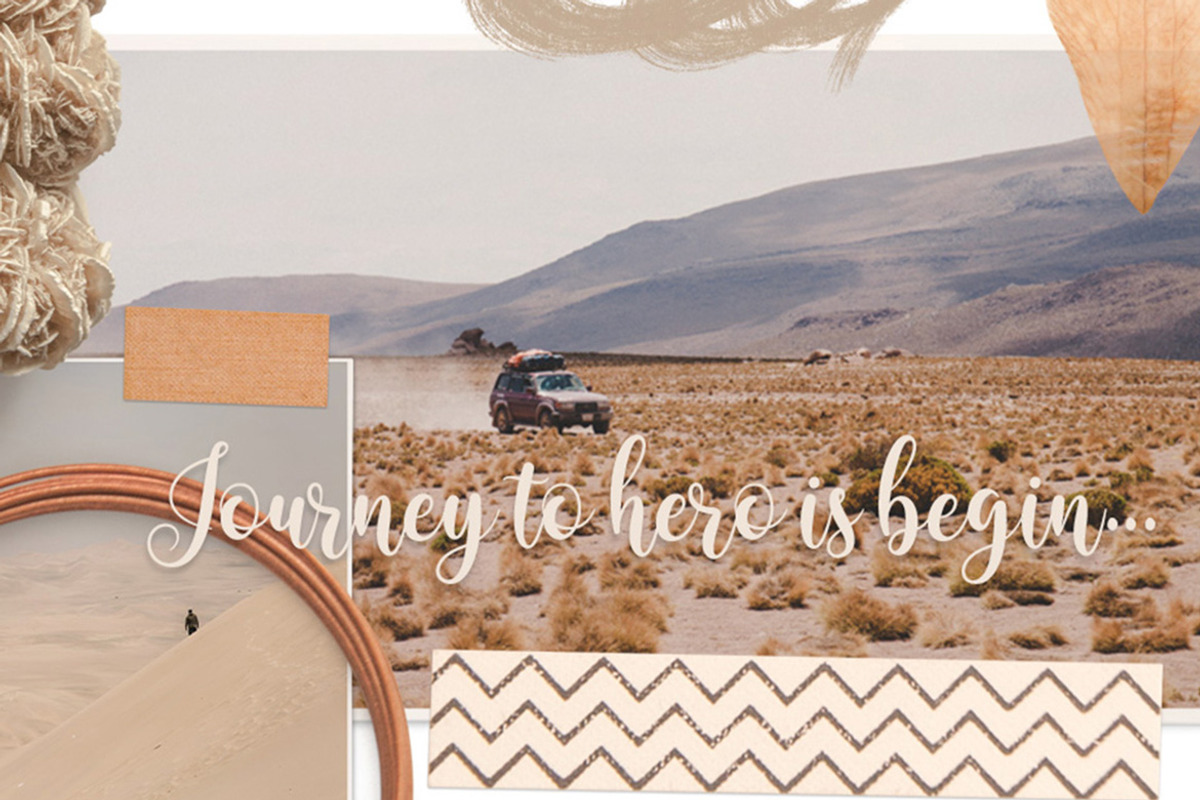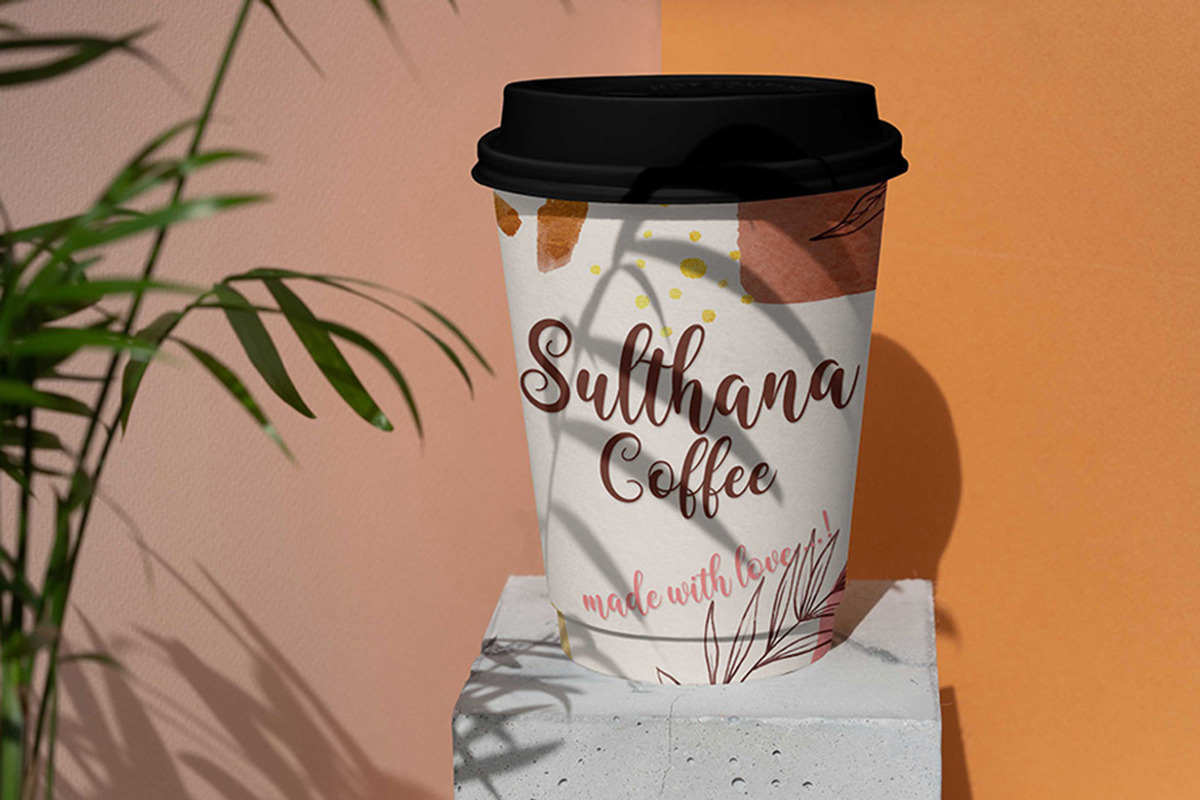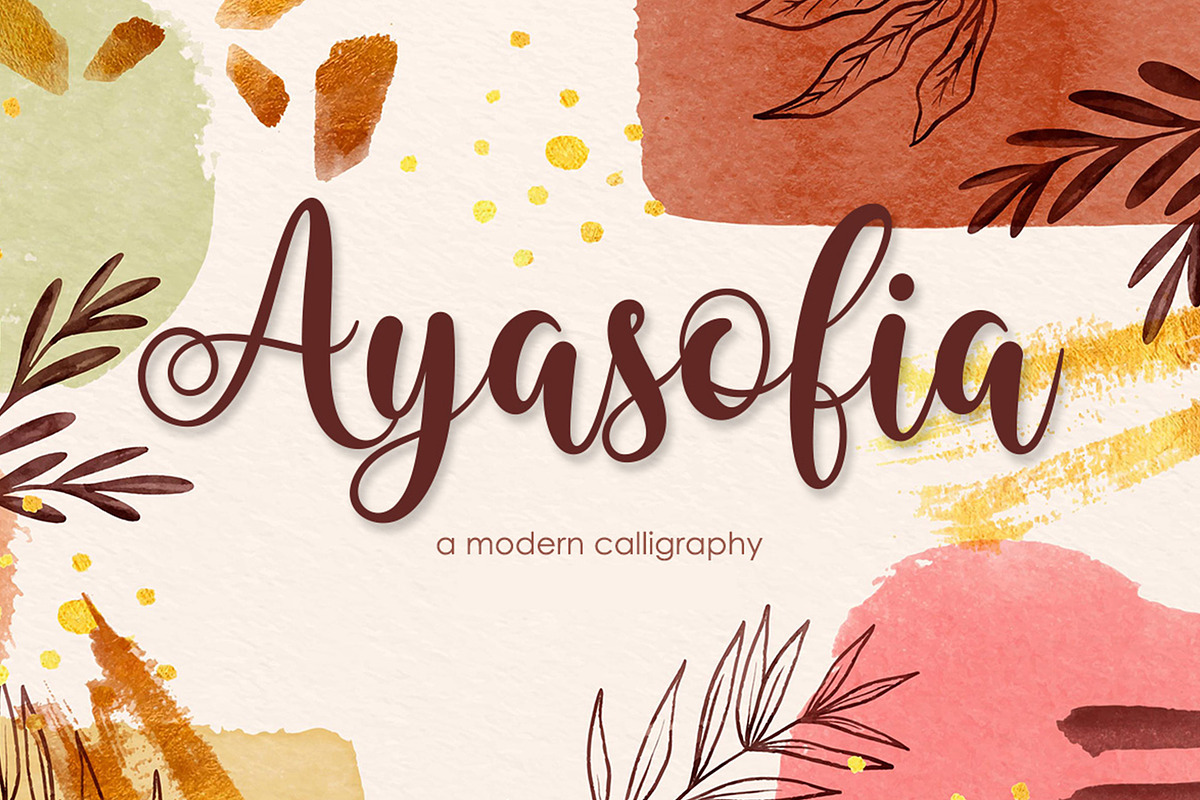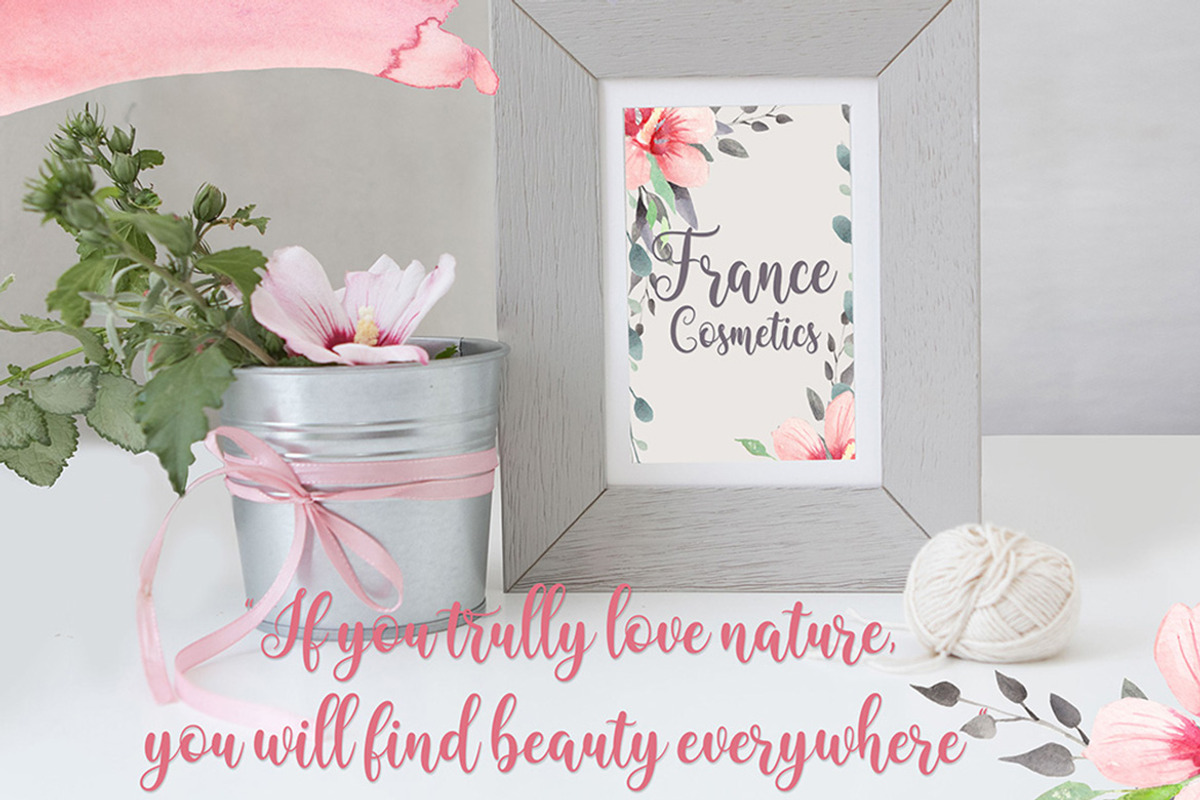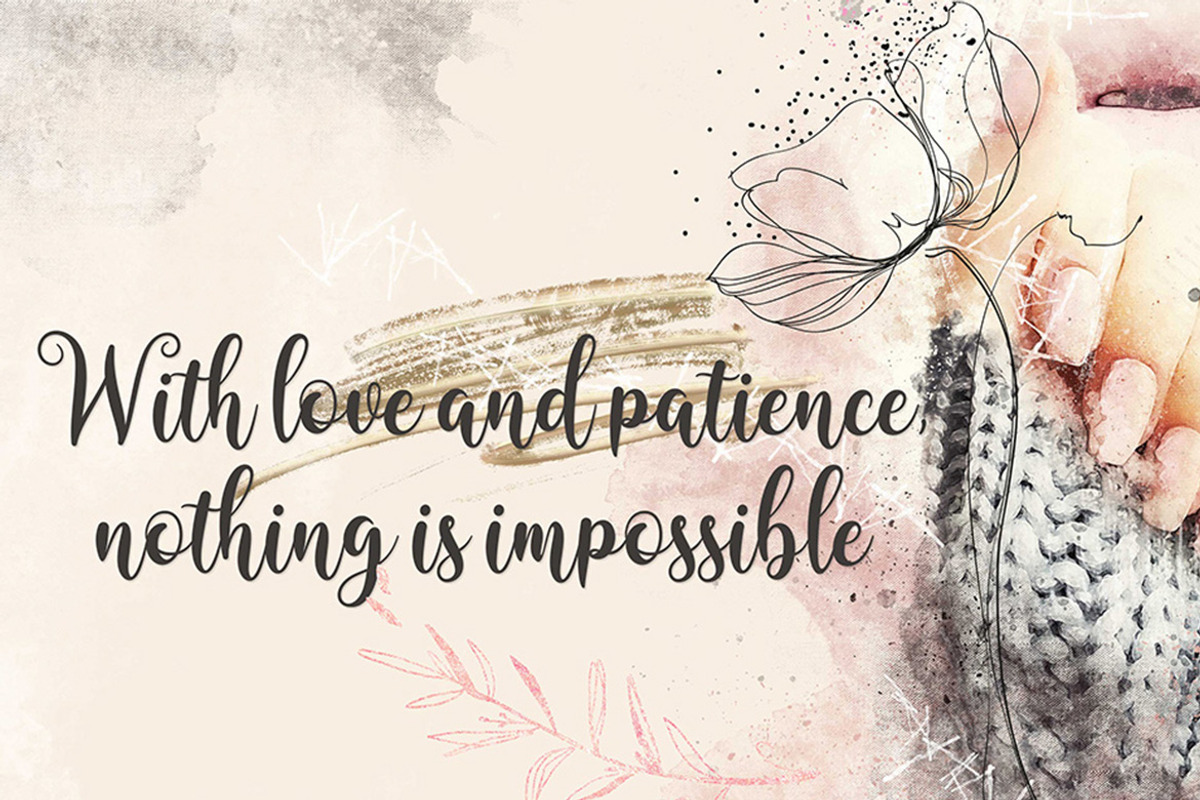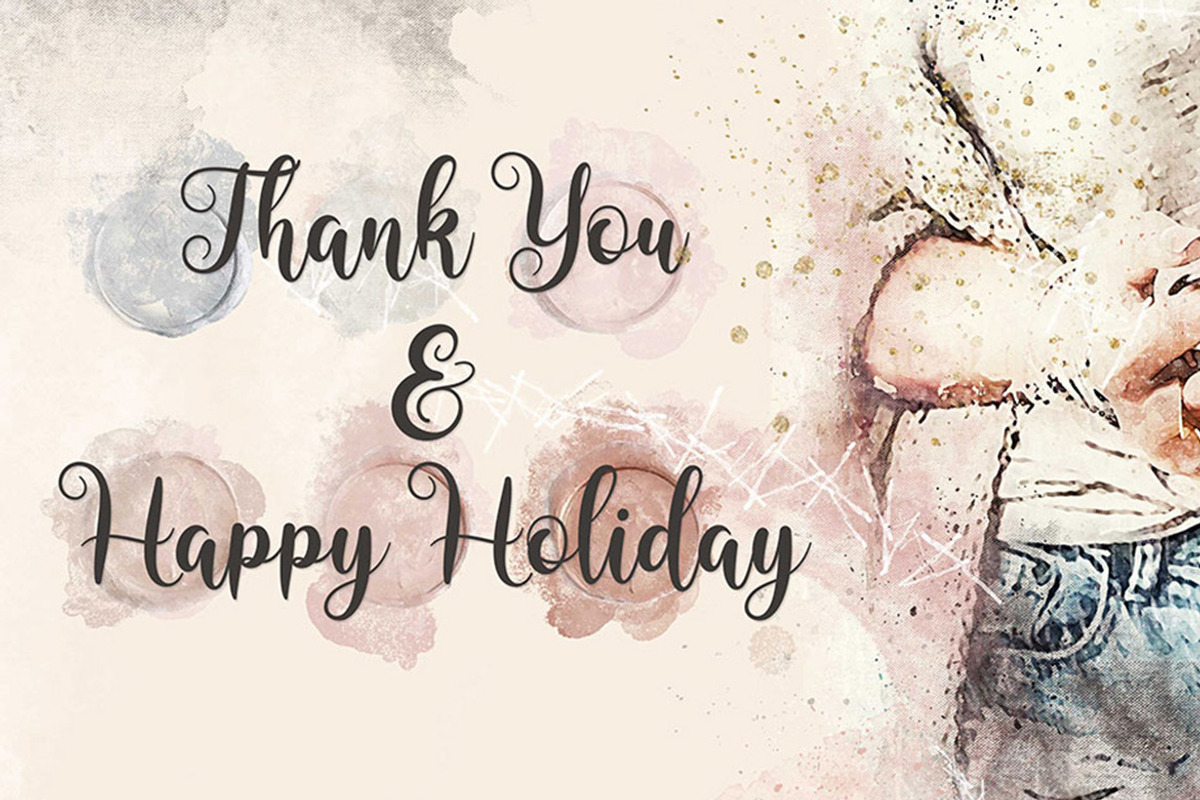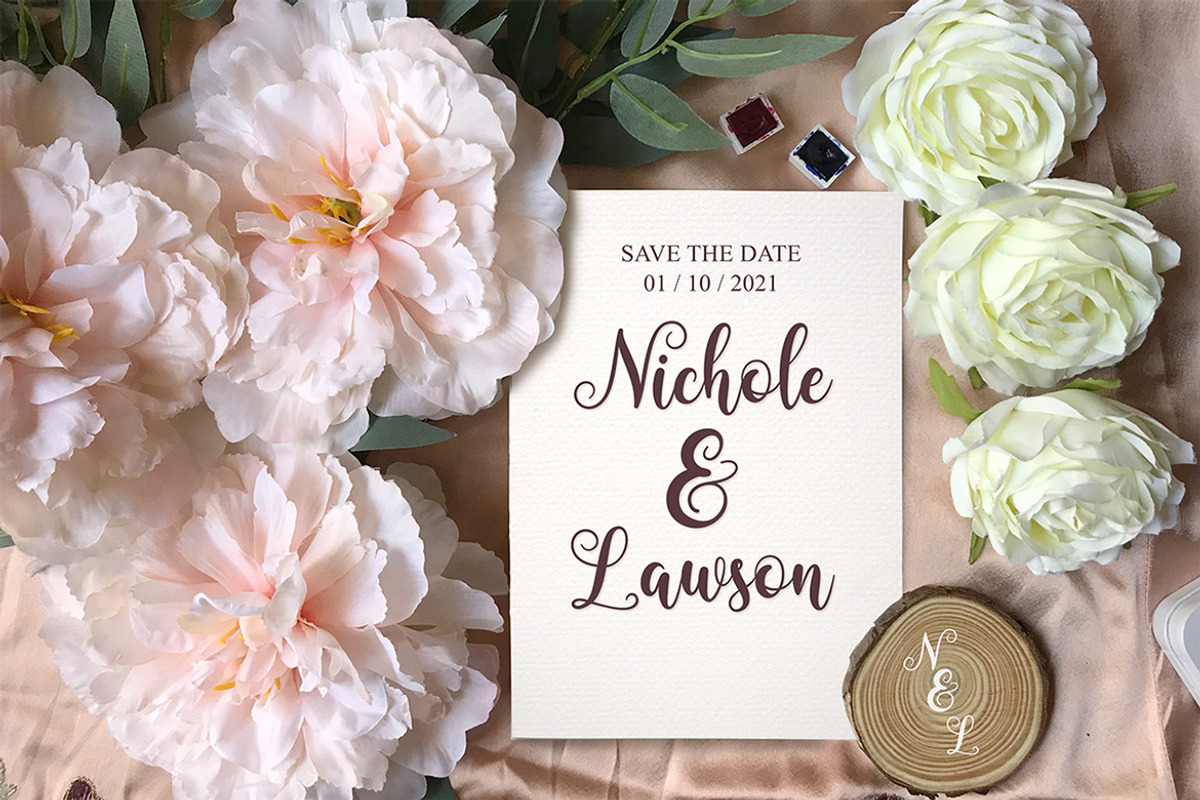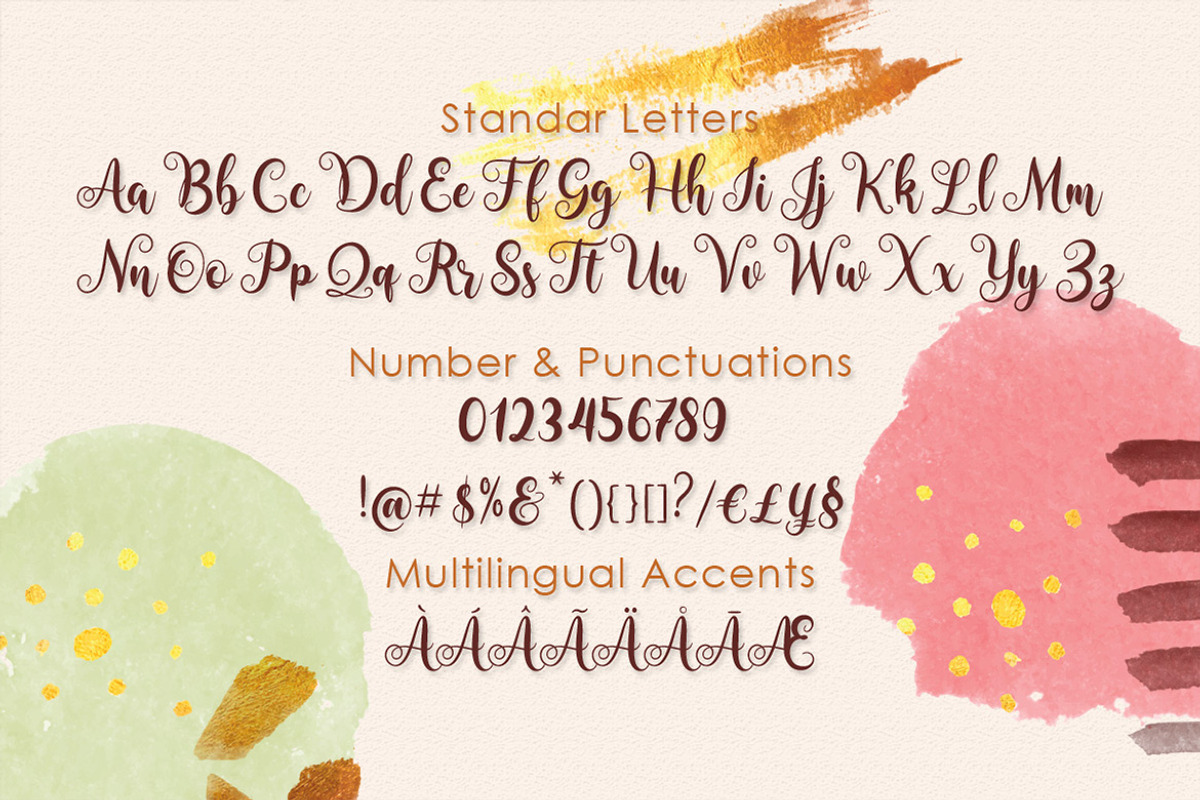
Ayasofia | Modern Calligraphy
Ayasofia is a modern calligraphy with many alternative styles, this font looks natural, elegant and perfect for any extraordinary project.Babylone is suitable for various products such as invitations, product packaging, quotes, product design, crafter, labels, photography, watermarks, logos & branding and very suitable for design Valentine day, mother day, wedding, spring, christmas, etc.